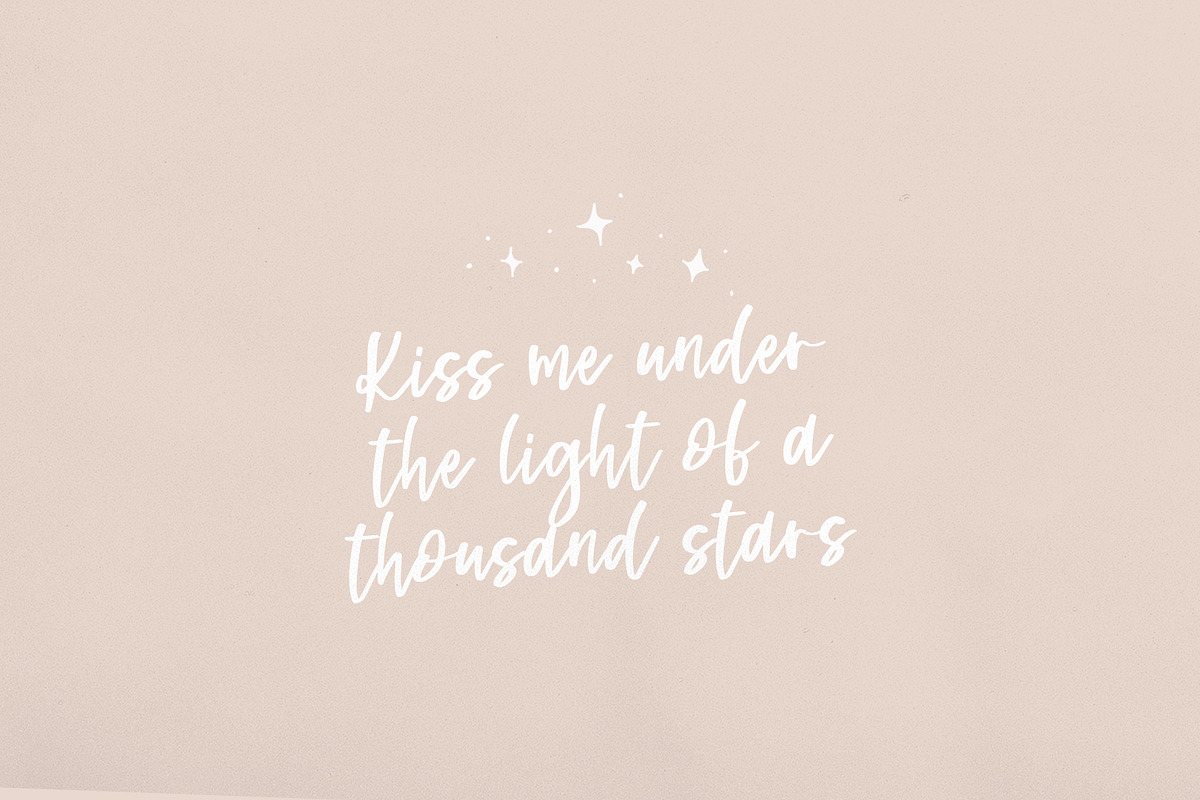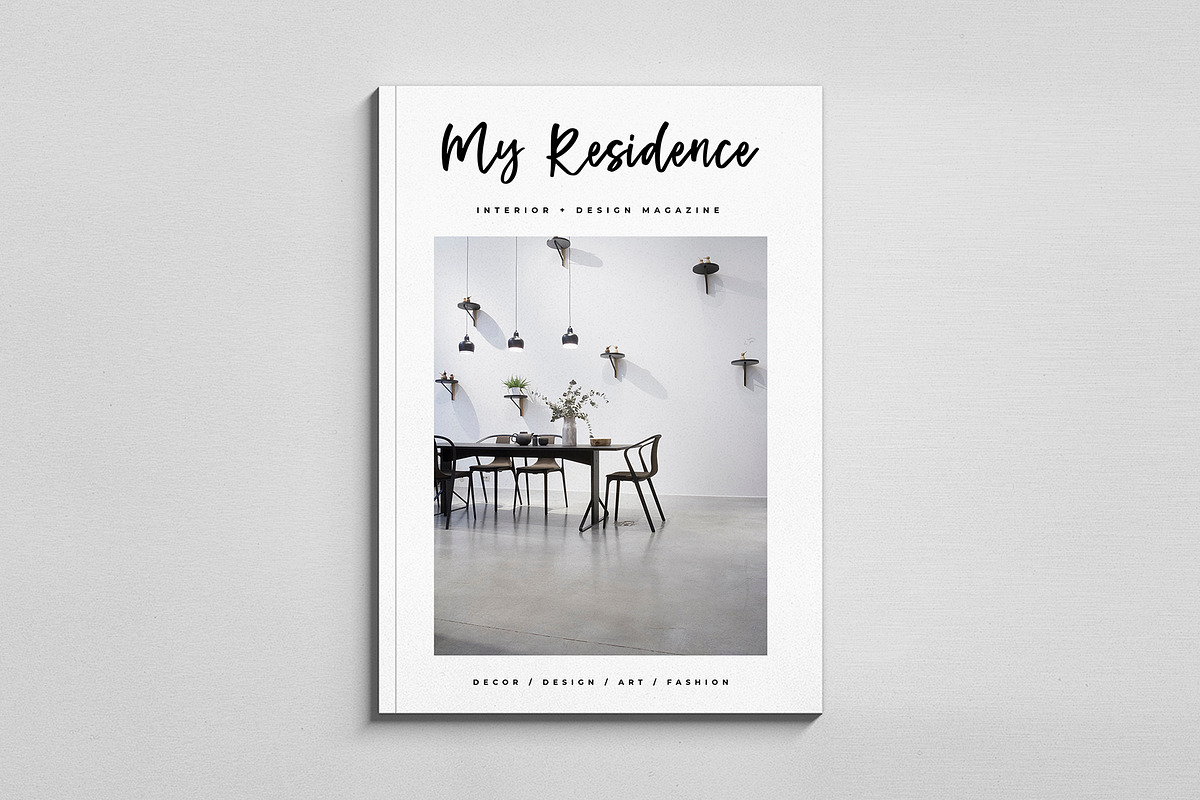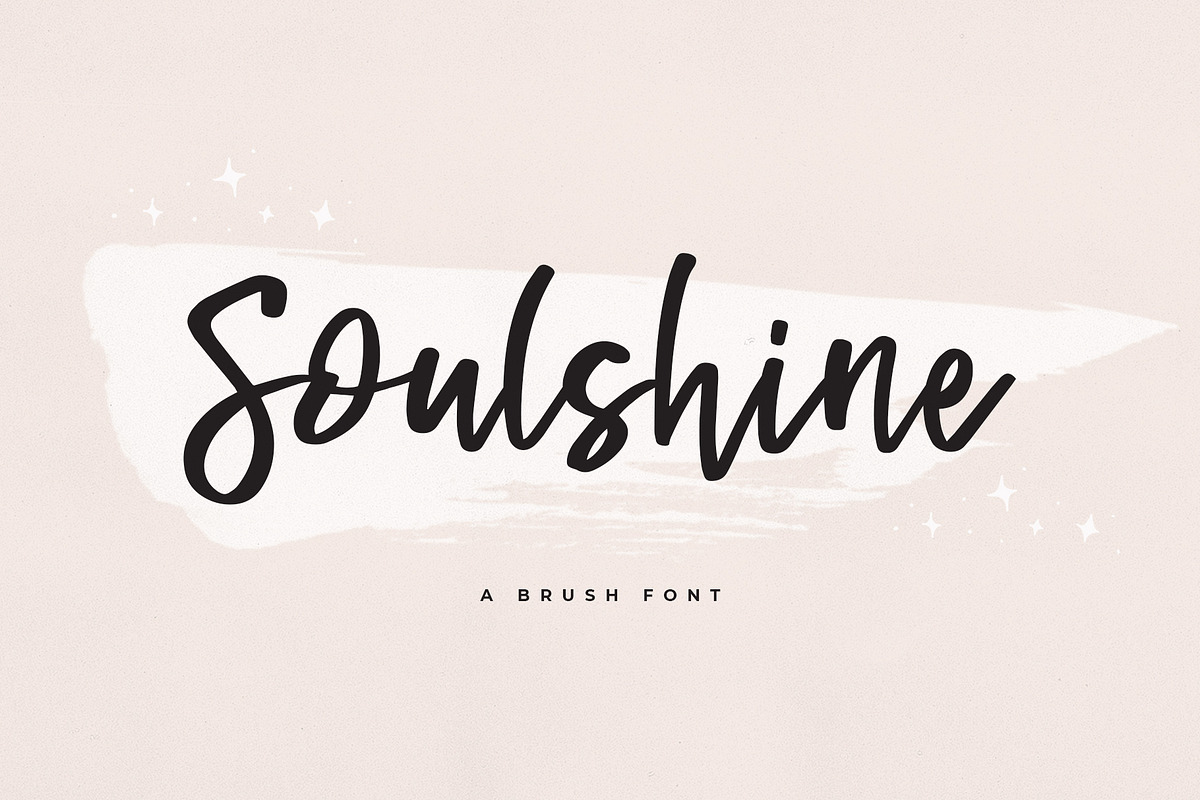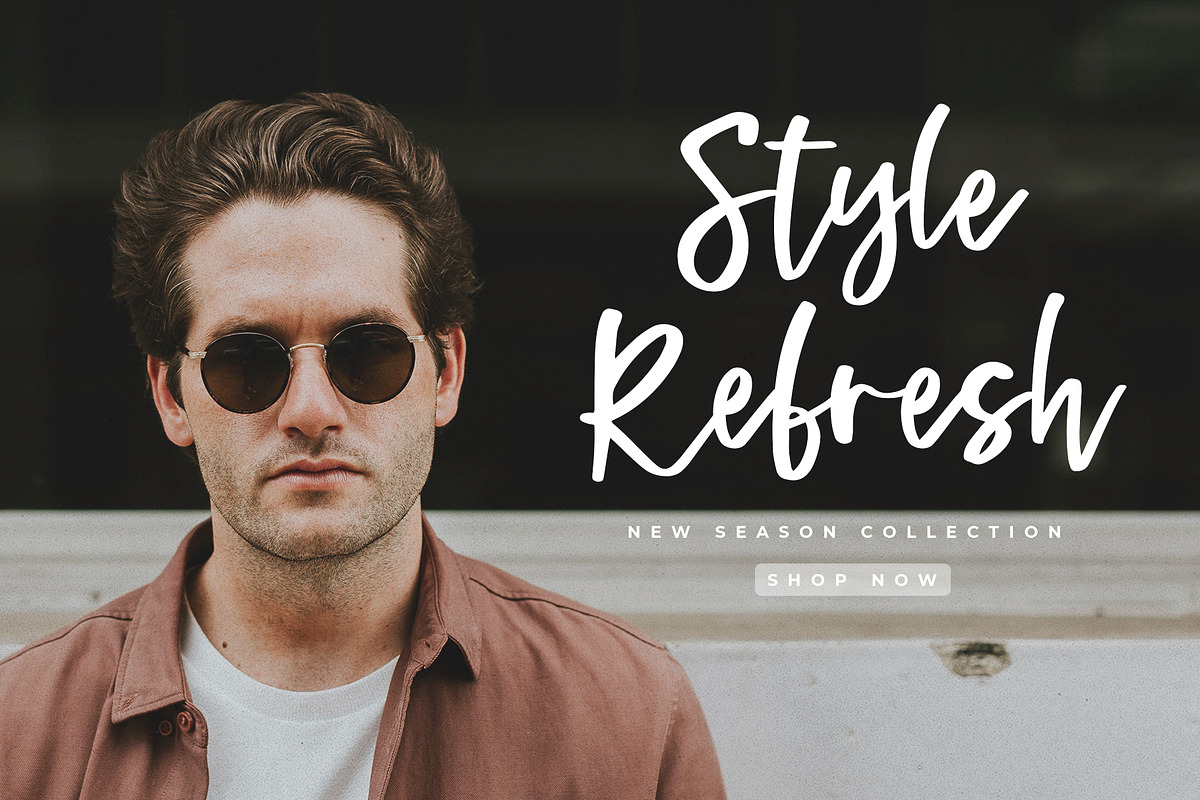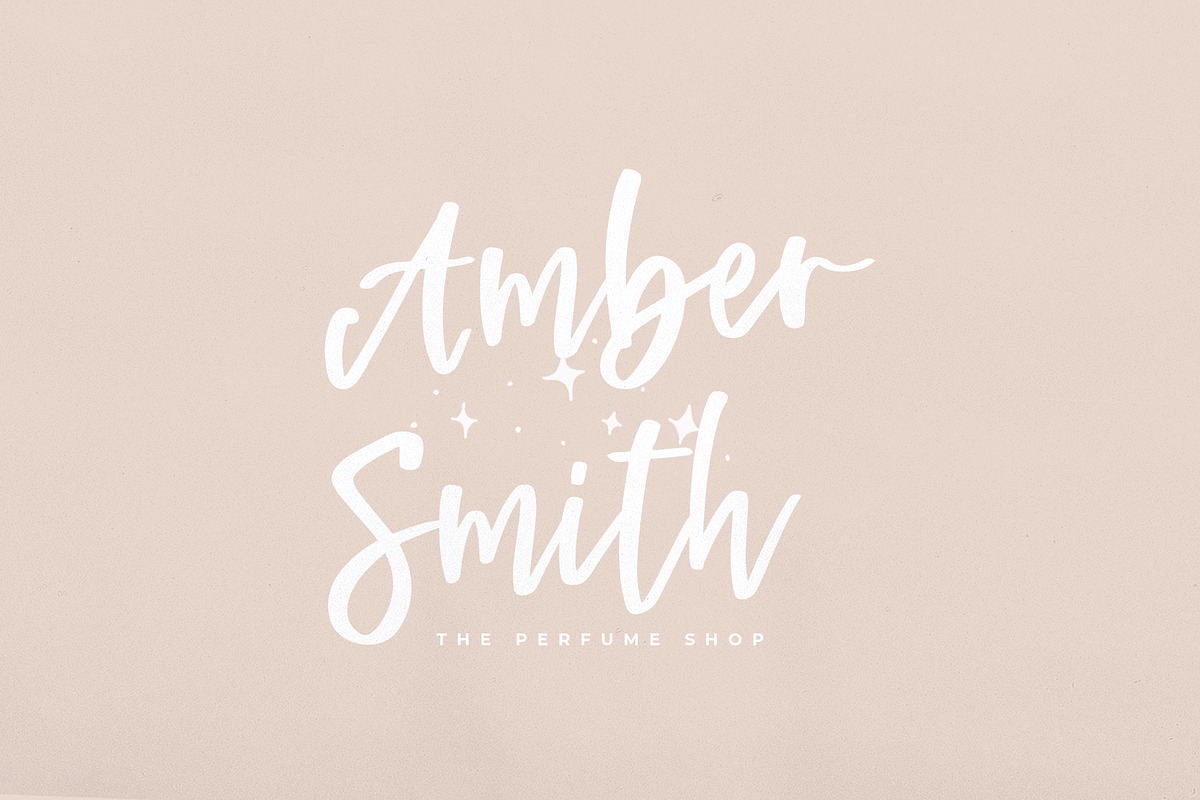
Soulshine
Soulshine brush script typeface
It's a new handwritten font. This font includes:
- Upper and lower case standard character
- Punctuation and numerals
You can create perfect and unique design of your wedding postcard, branding, invitations, quotes, prints, and many more.